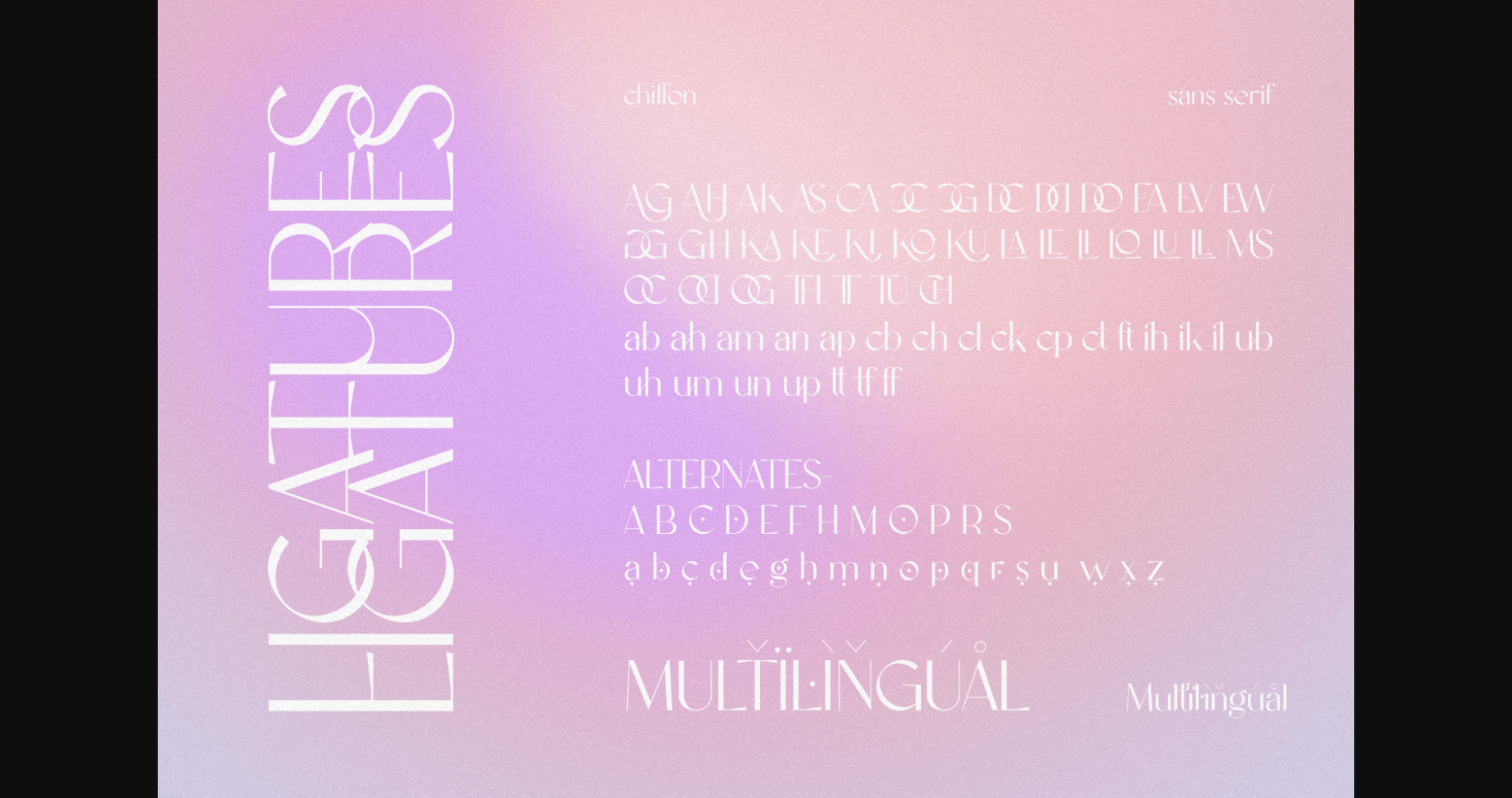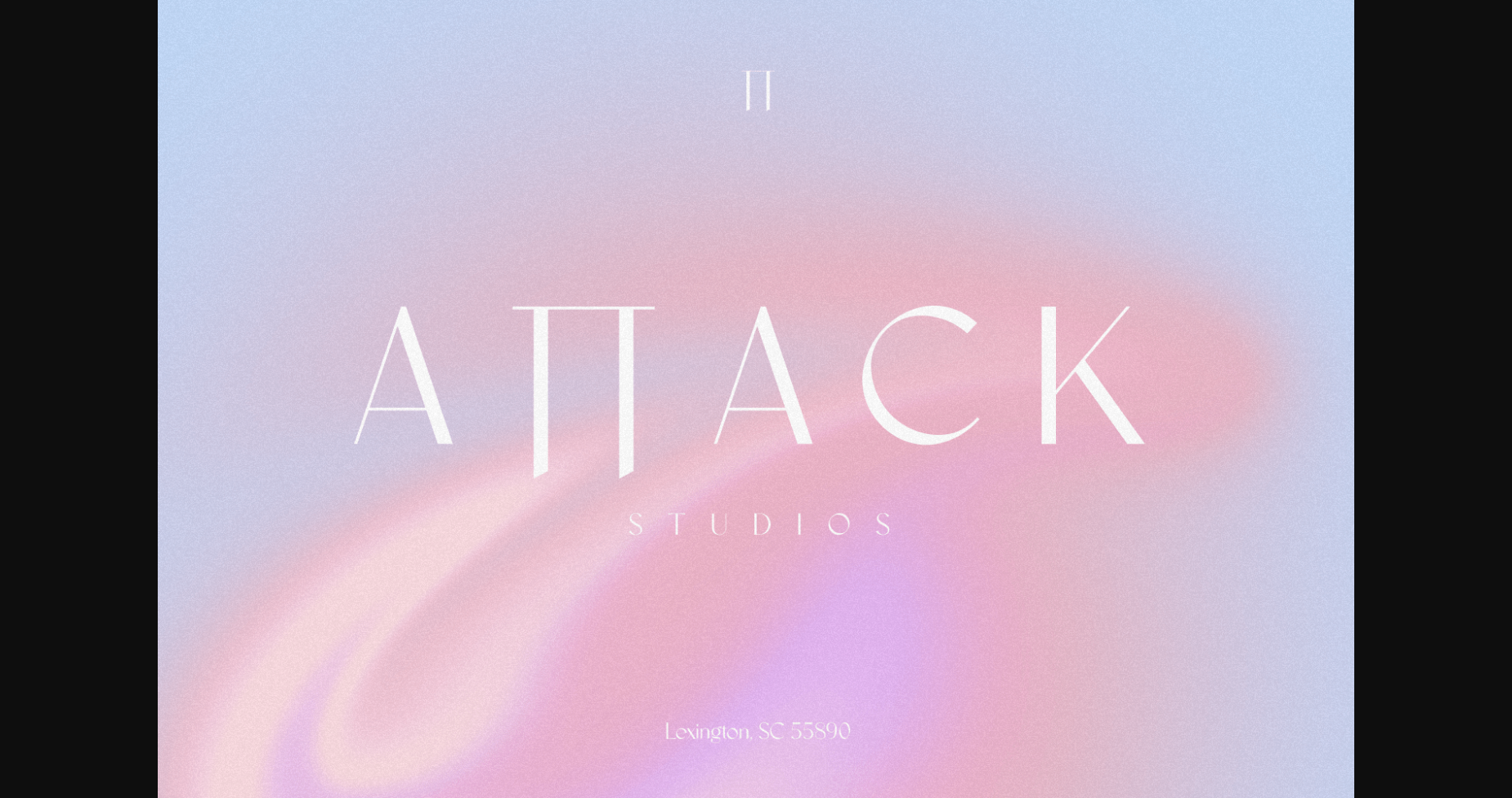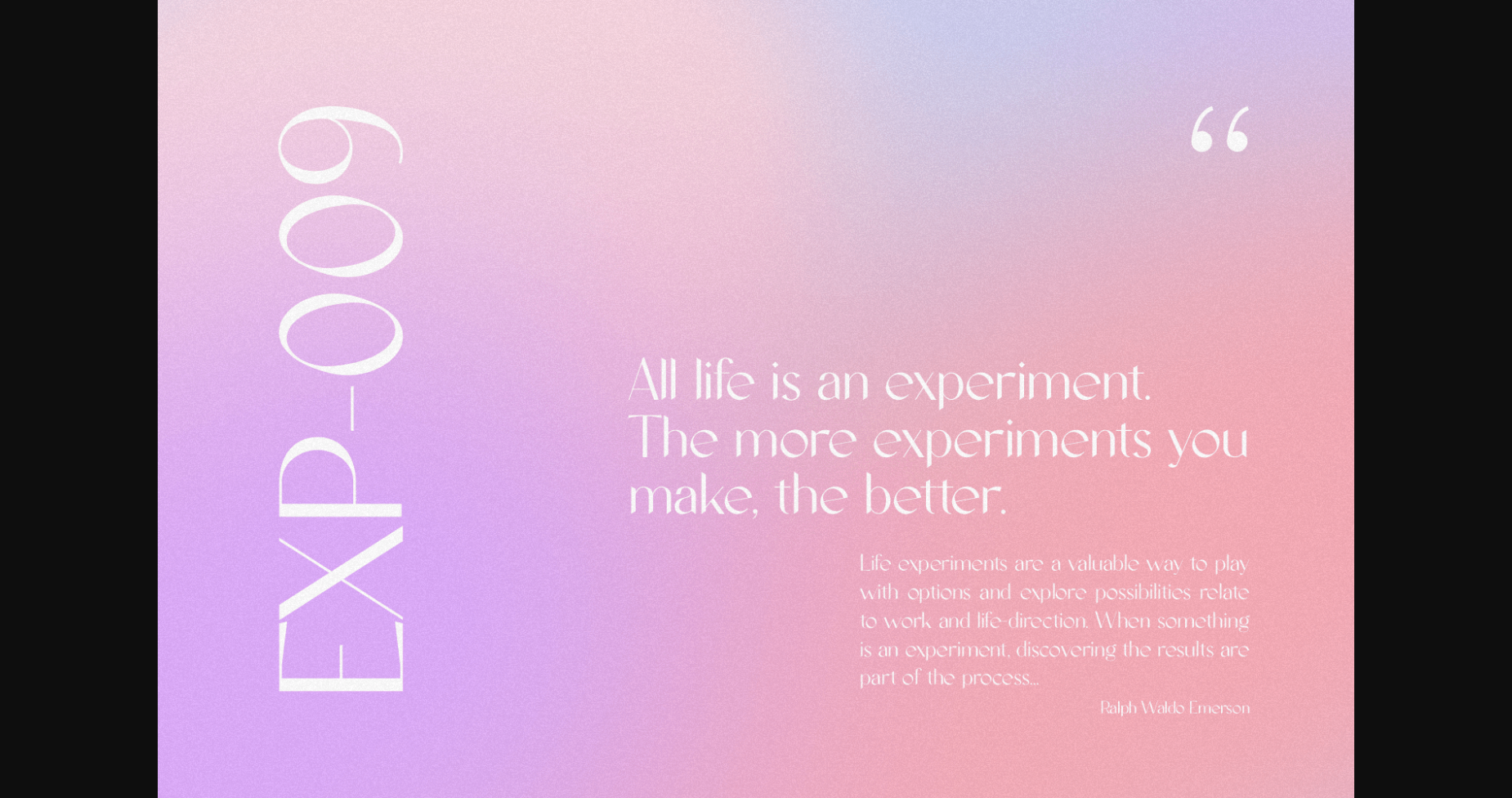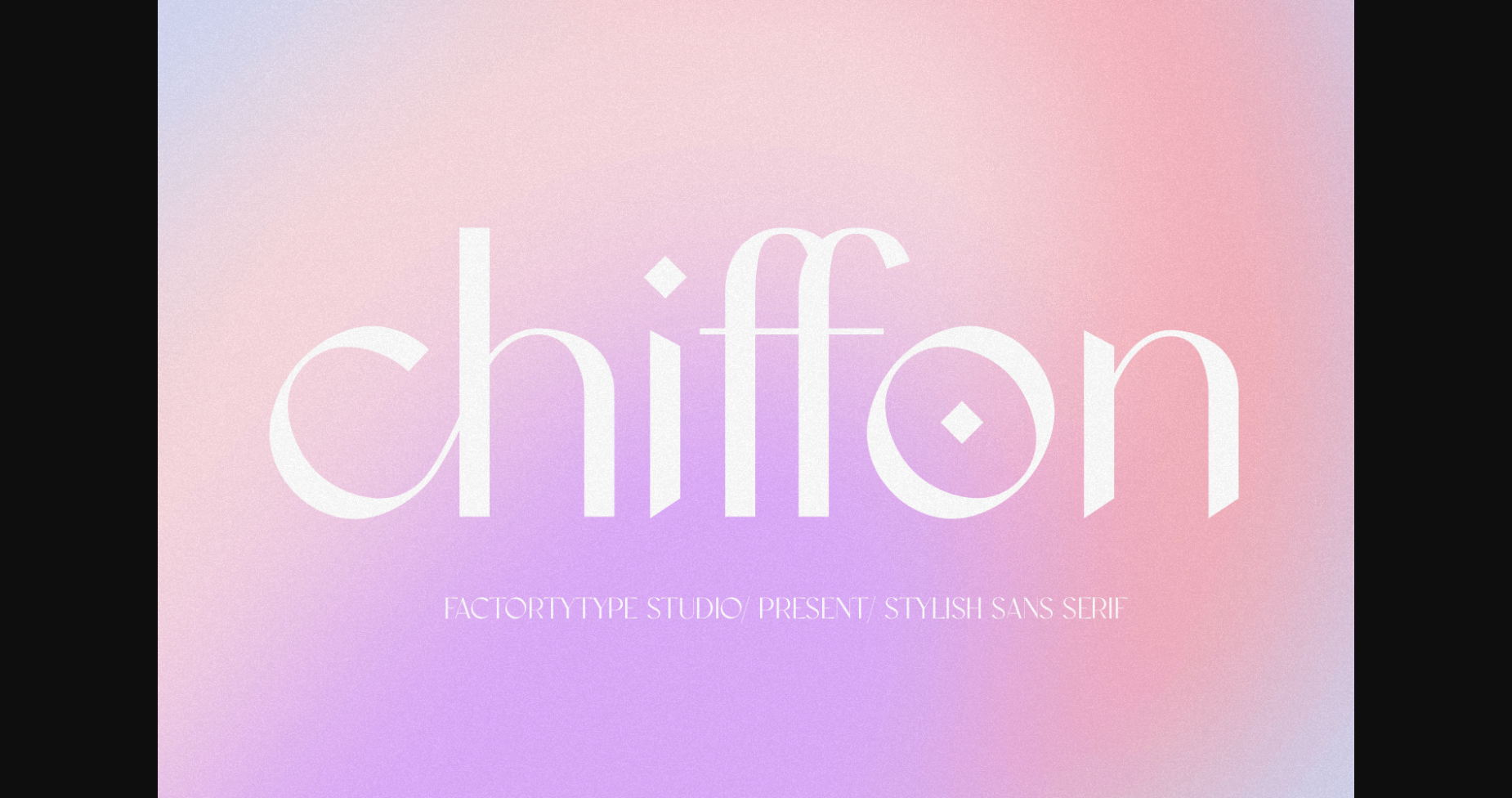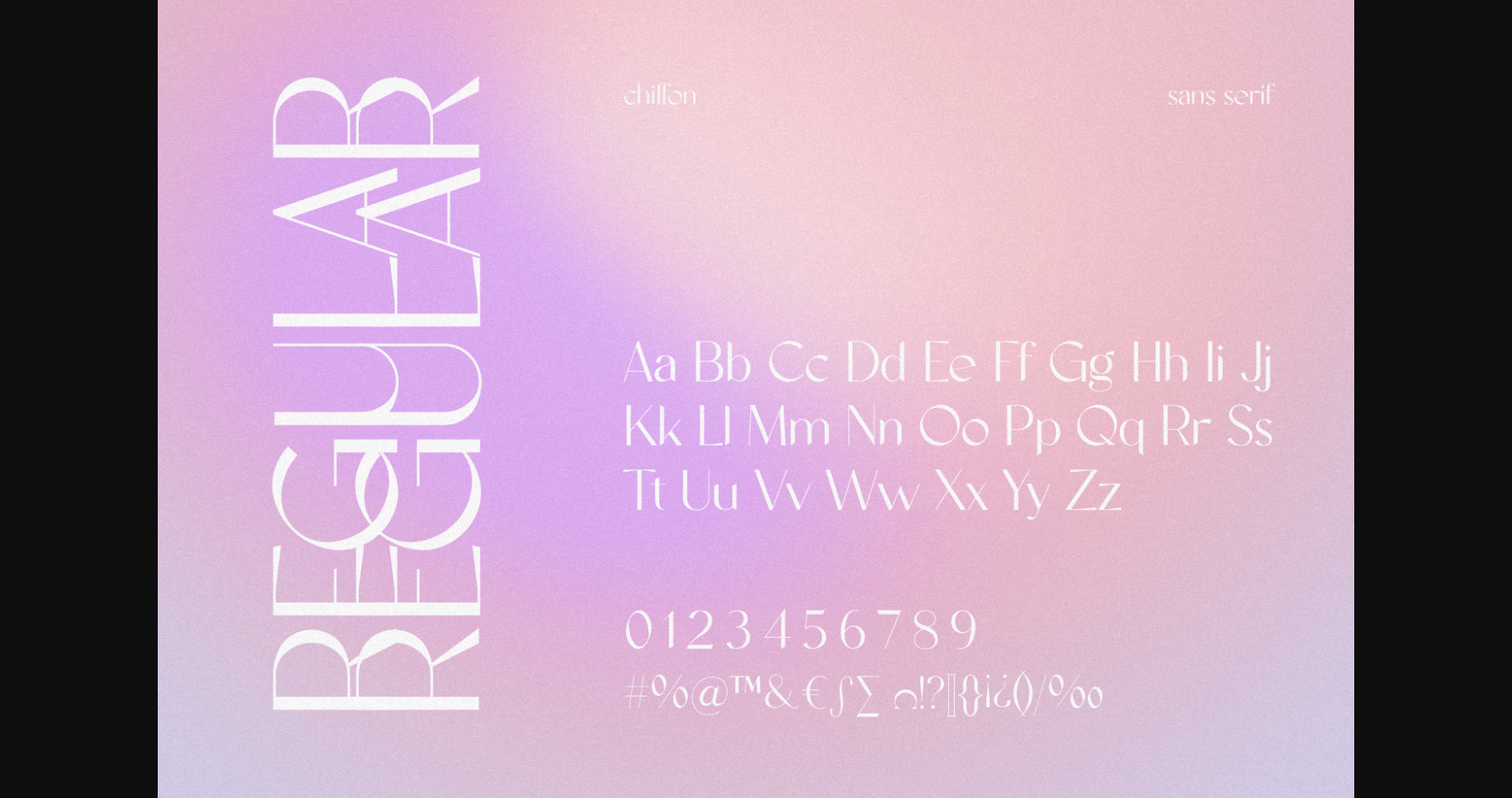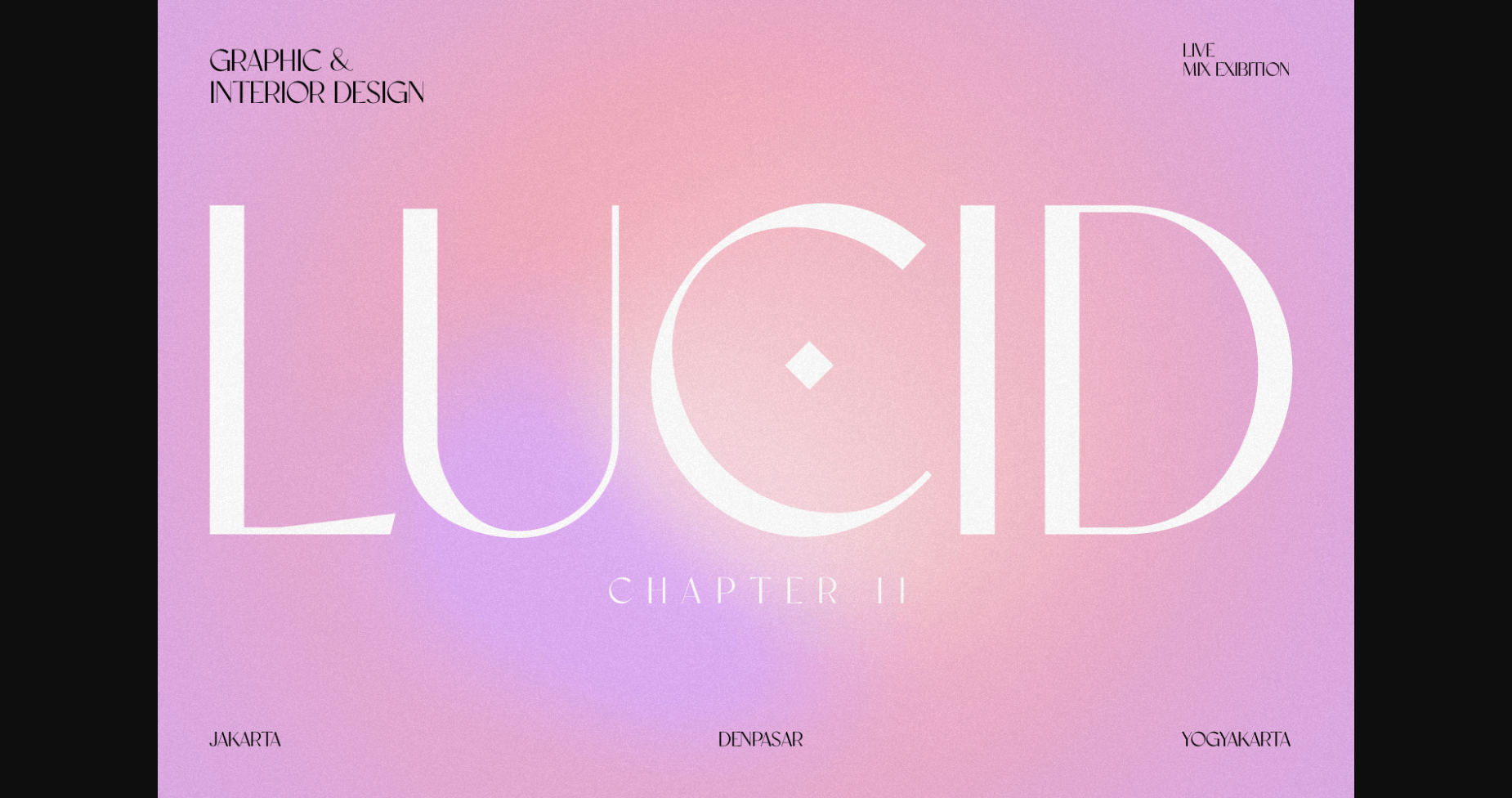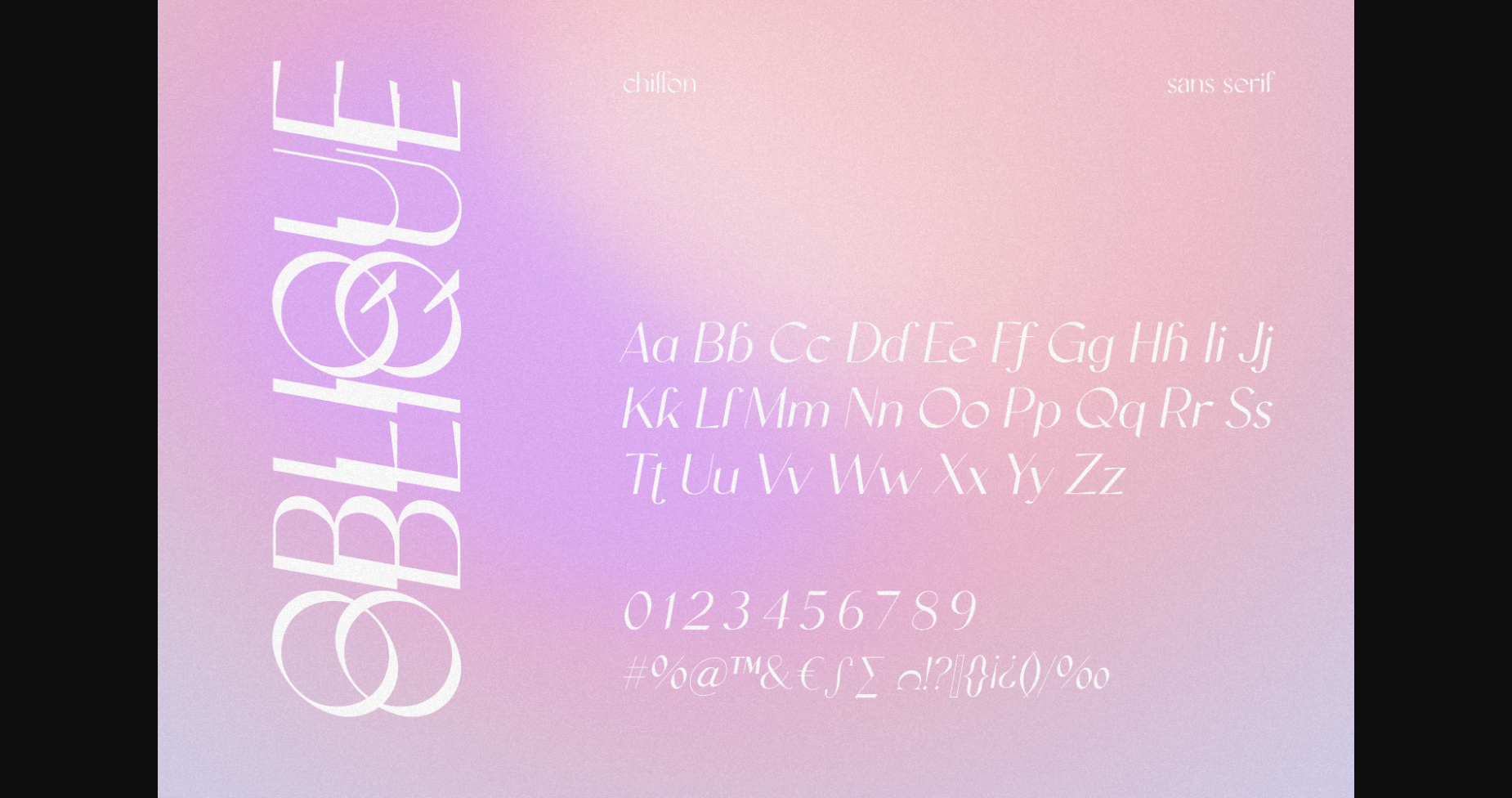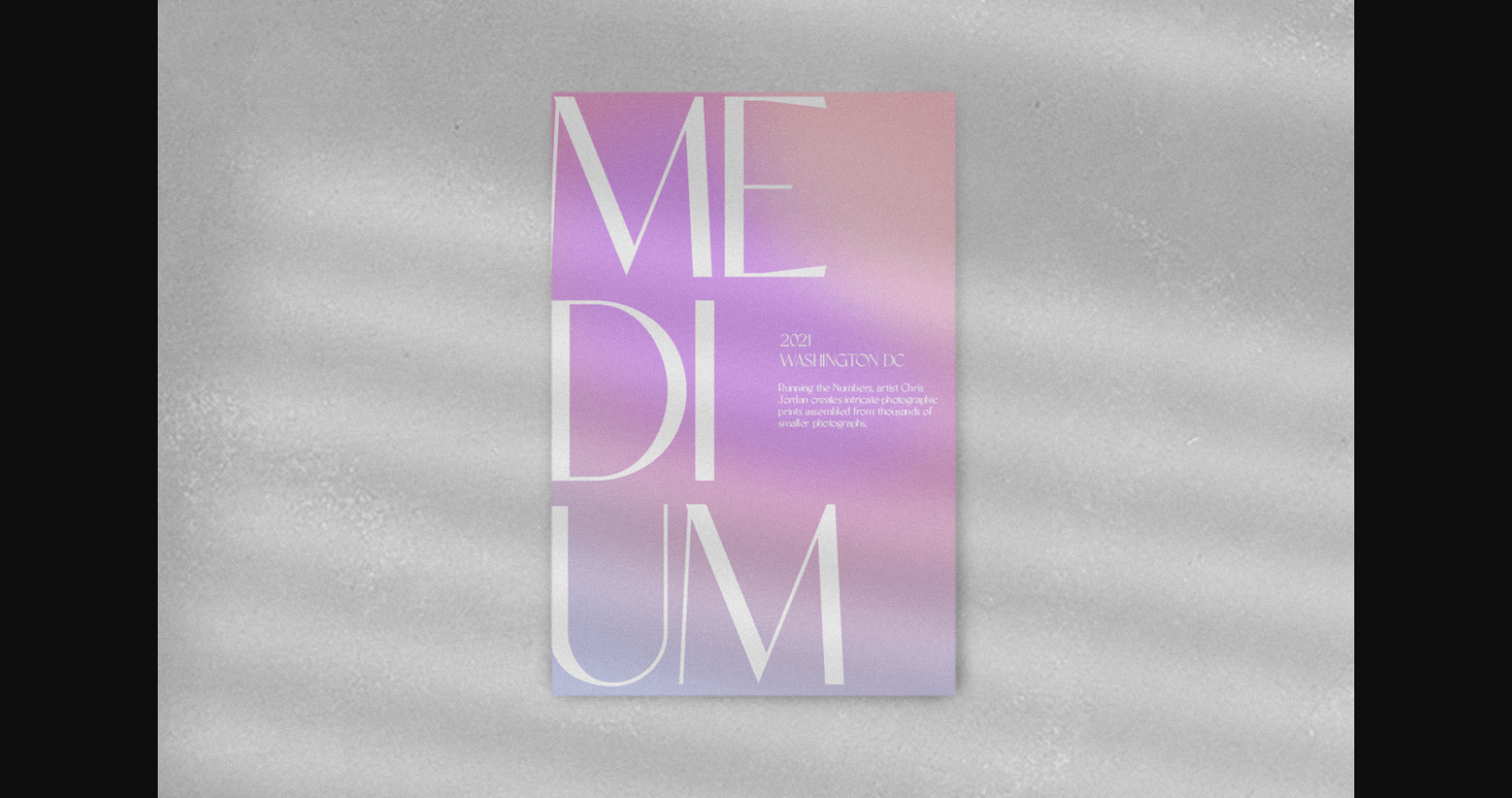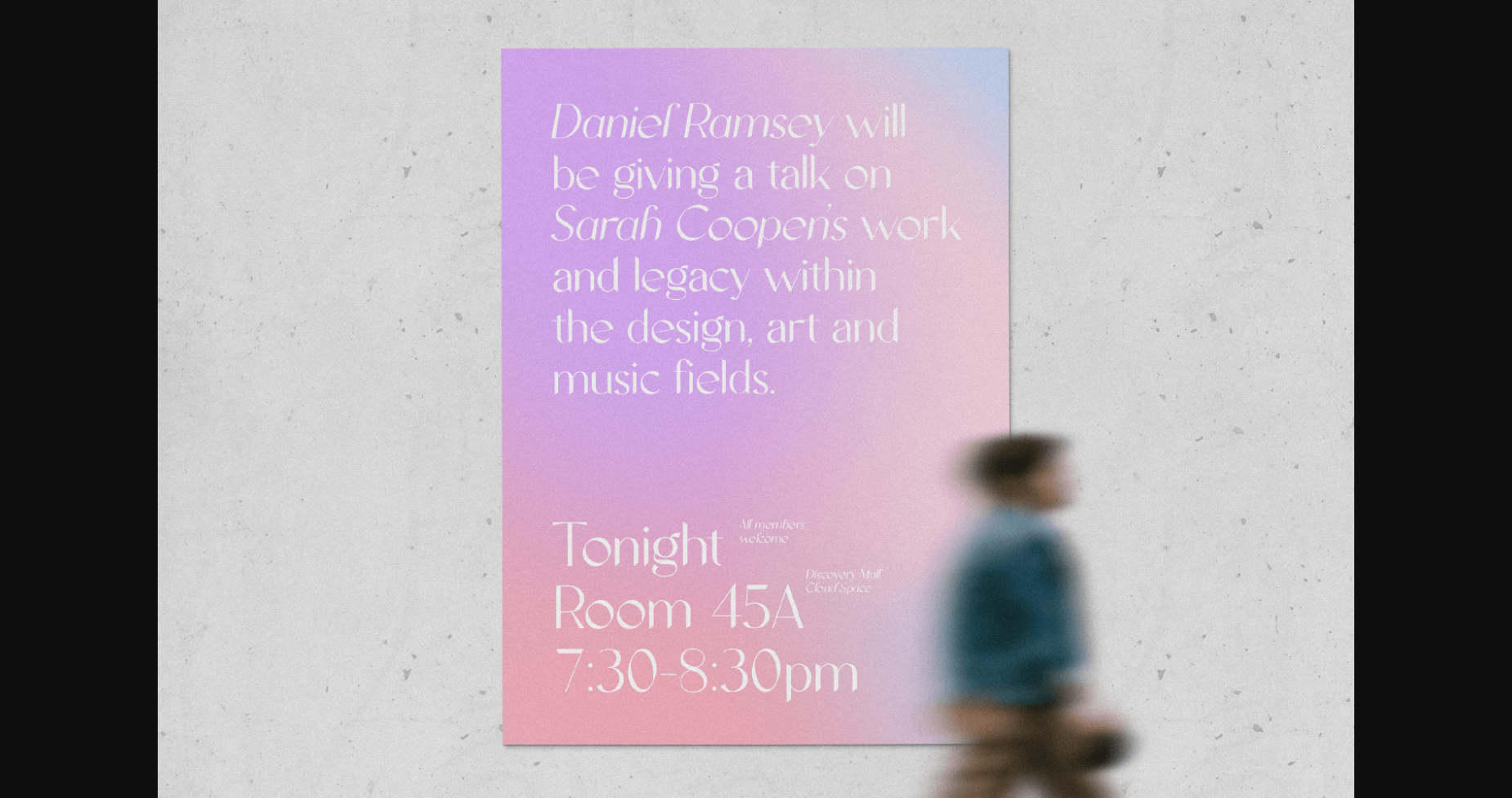
Chiffon Font
About Chiffon Font
Chiffon is a stylish sans serif font designed specifically for logo and brand designs. Chiffon reflects back a modern vibe and minimalism. This font is PUA encoded, which means you can access all of the glyphs and swashes with ease!